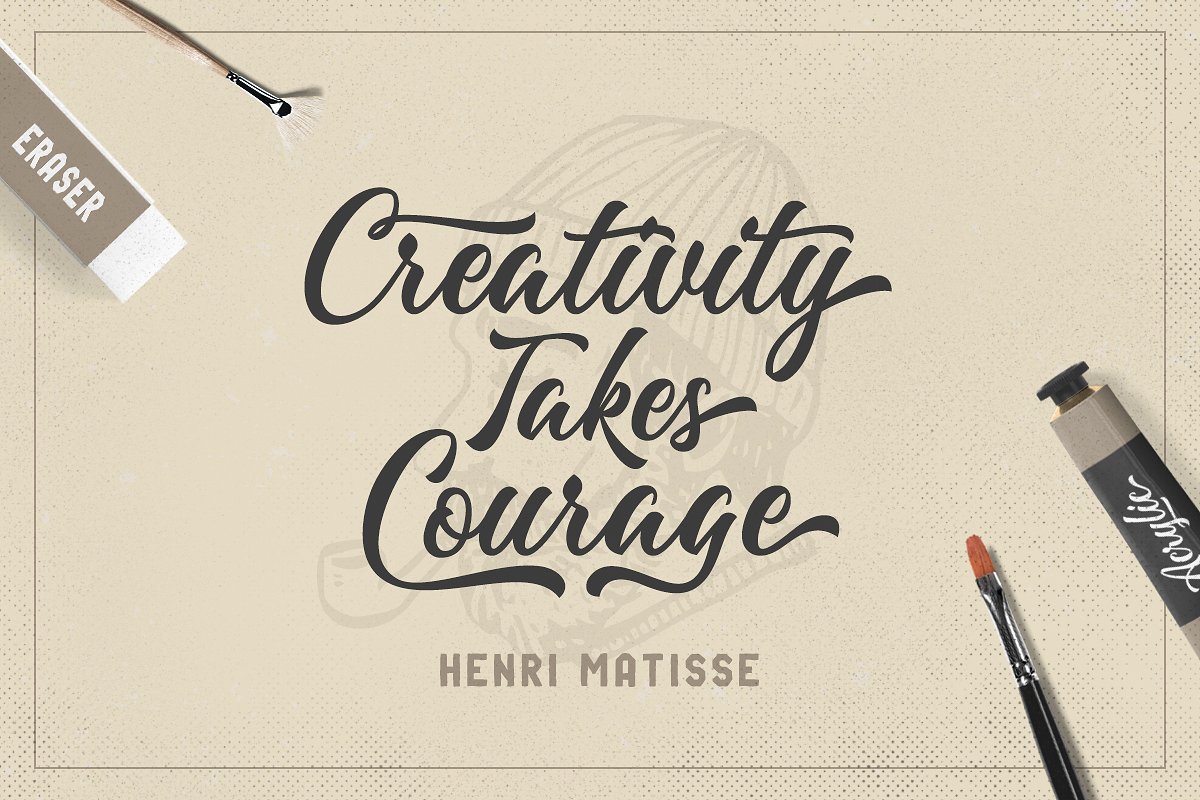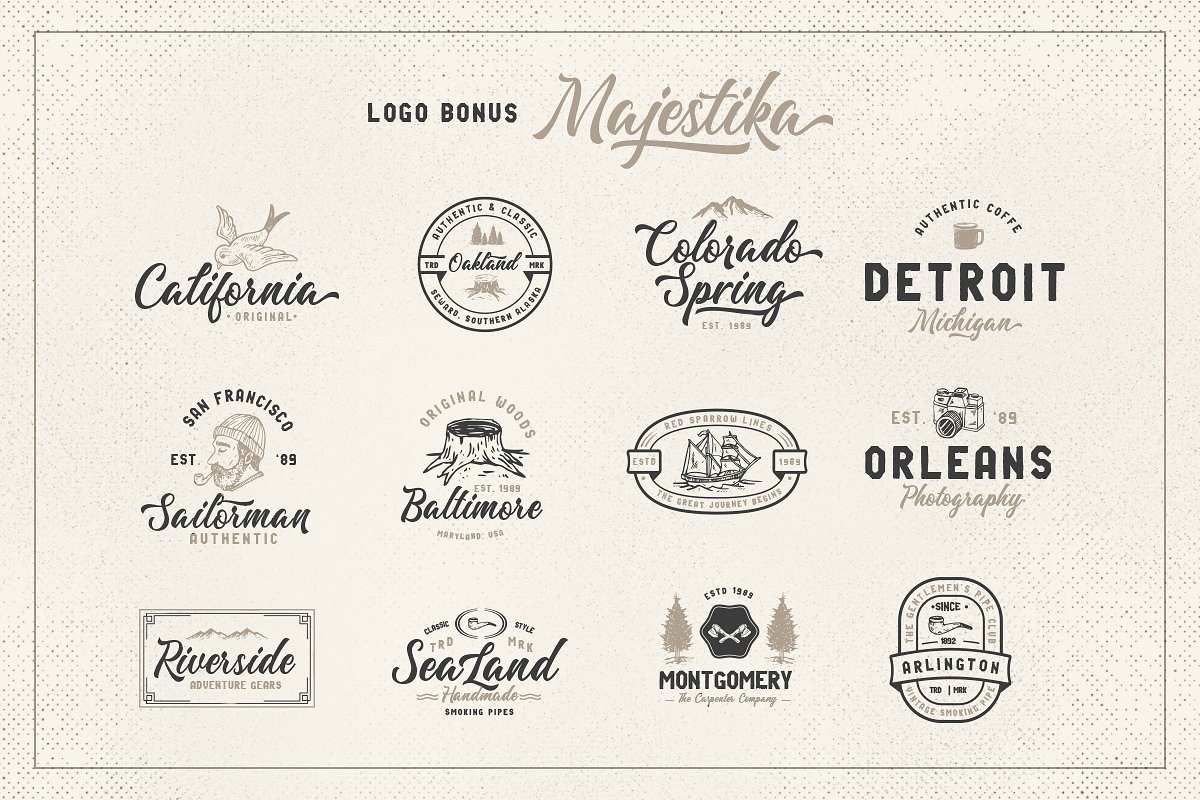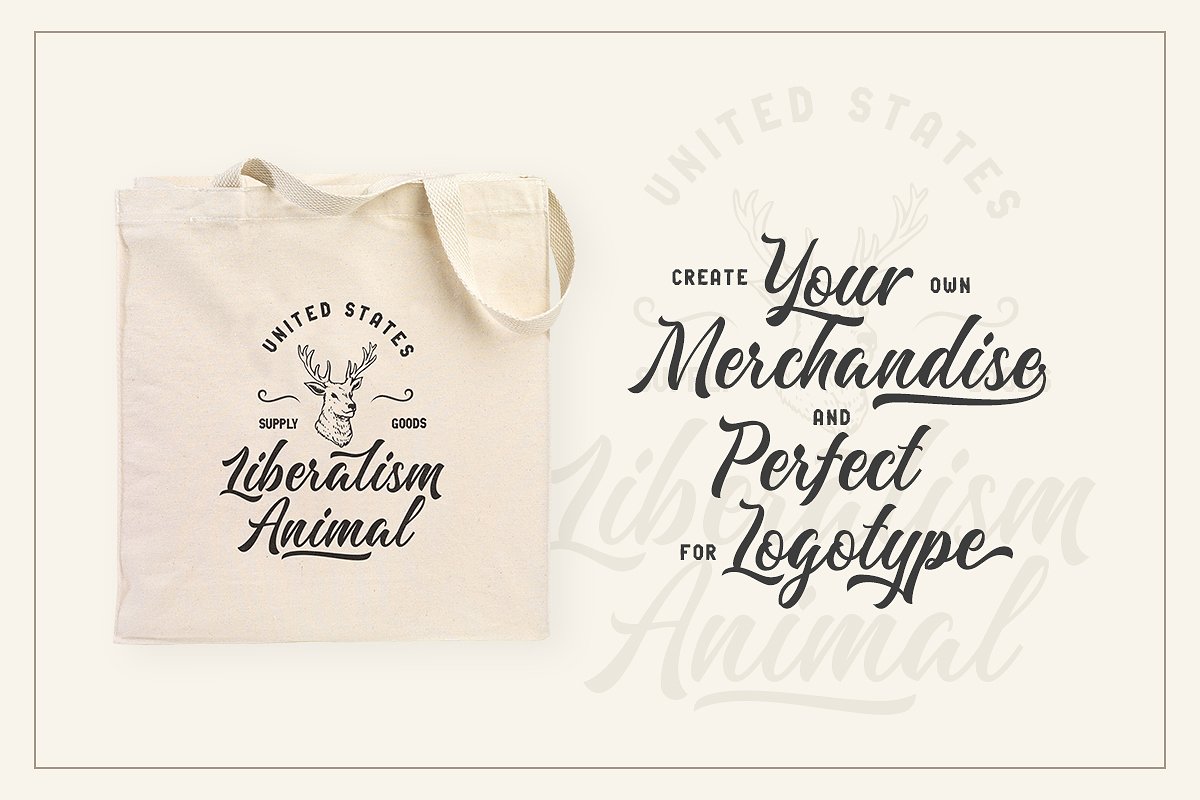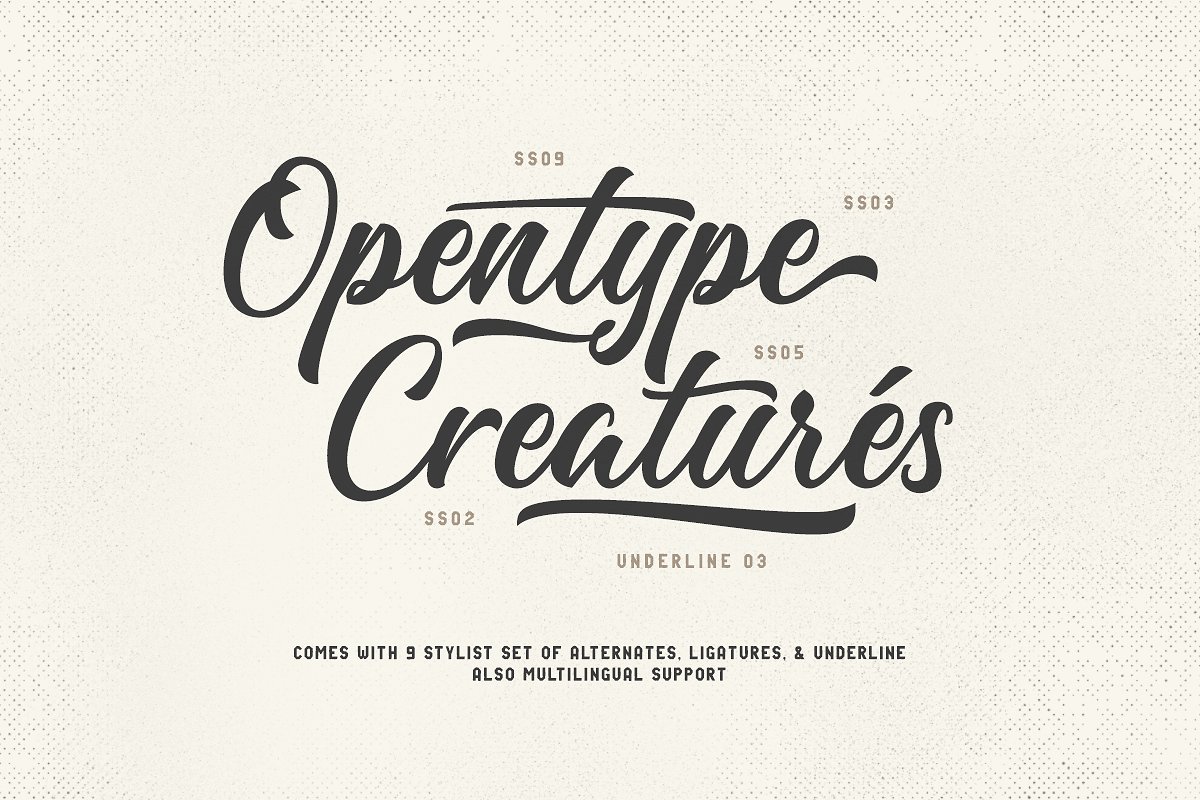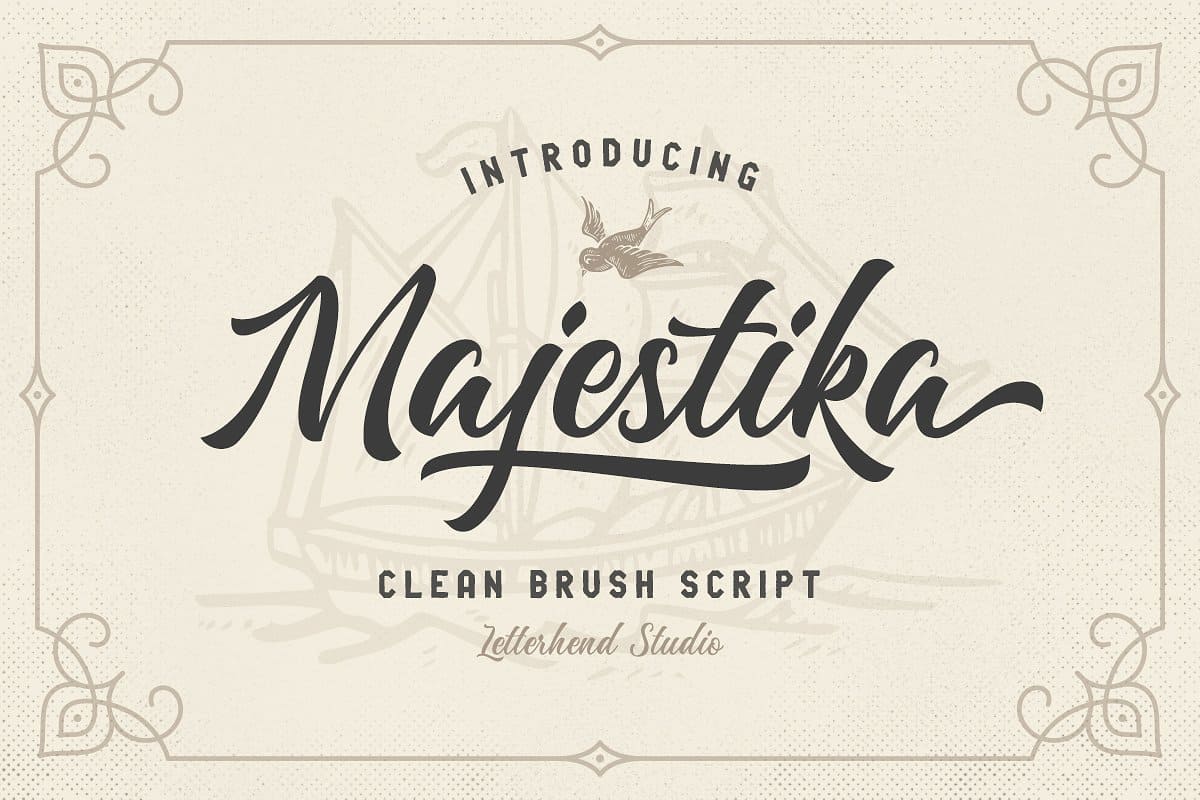
Majestika Brush Script Font
A script for urban people and urban project. It will be a perfect choice for your work. Add it to your fonts collection now! Introducing Majestika Font. Majestika Script is a beautiful modern calligraphy which is suitable for you who needs a typeface for headline, logotype, apparel, invitation, branding, packaging, advertising etc. This typeface is comes in uppercase, lowercase, punctuations, symbols & numerals, stylistic set alternate, ligatures, etc.